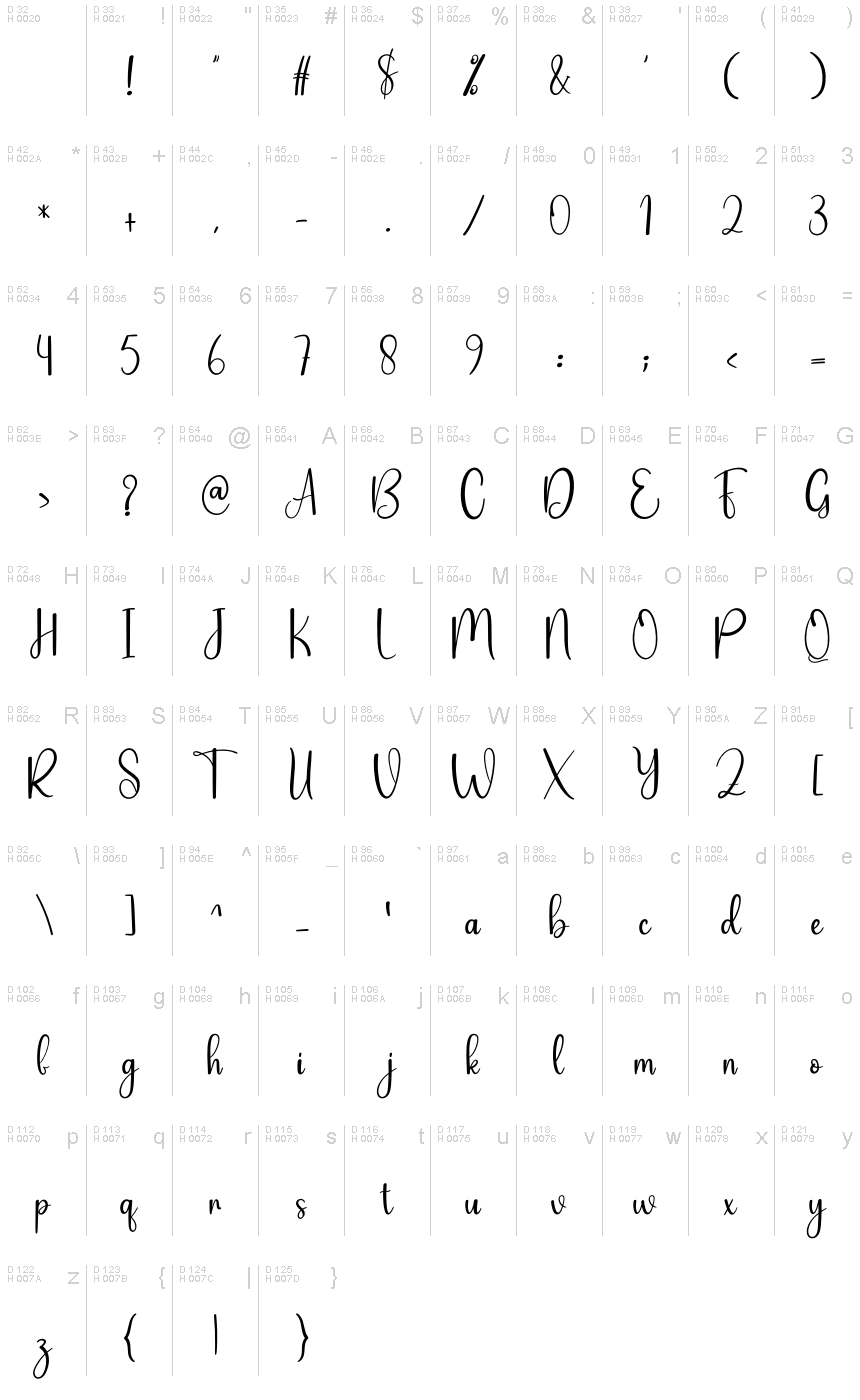
Santaclause
Santaclause is a delightful handwritten display font that exudes charm and playfulness. Designed by Andi Moz, this font boasts a whimsical, almost calligraphic aesthetic that instantly adds a touch of warmth and personality to any design. The gently flowing curves and the slight irregularities in the strokes create a sense of authenticity, making it an ideal choice for wedding invitations, greeting cards, or any project that calls for a heartfelt, personal touch.
The font's versatility shines through, as it seamlessly transitions from formal to casual settings, injecting a dose of lightheartedness and creativity wherever it is applied. Whether you're crafting a heartfelt message or adding a playful accent to a design, Santaclause is sure to captivate your audience and leave a lasting impression.